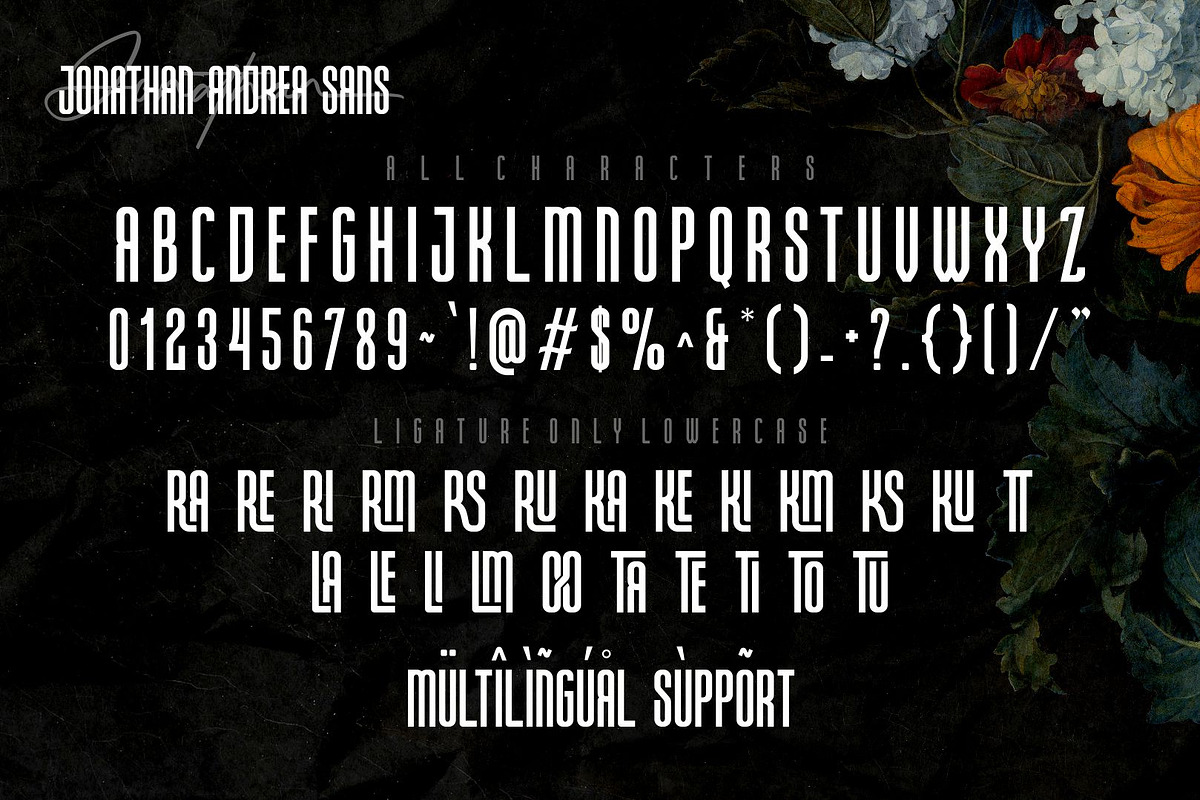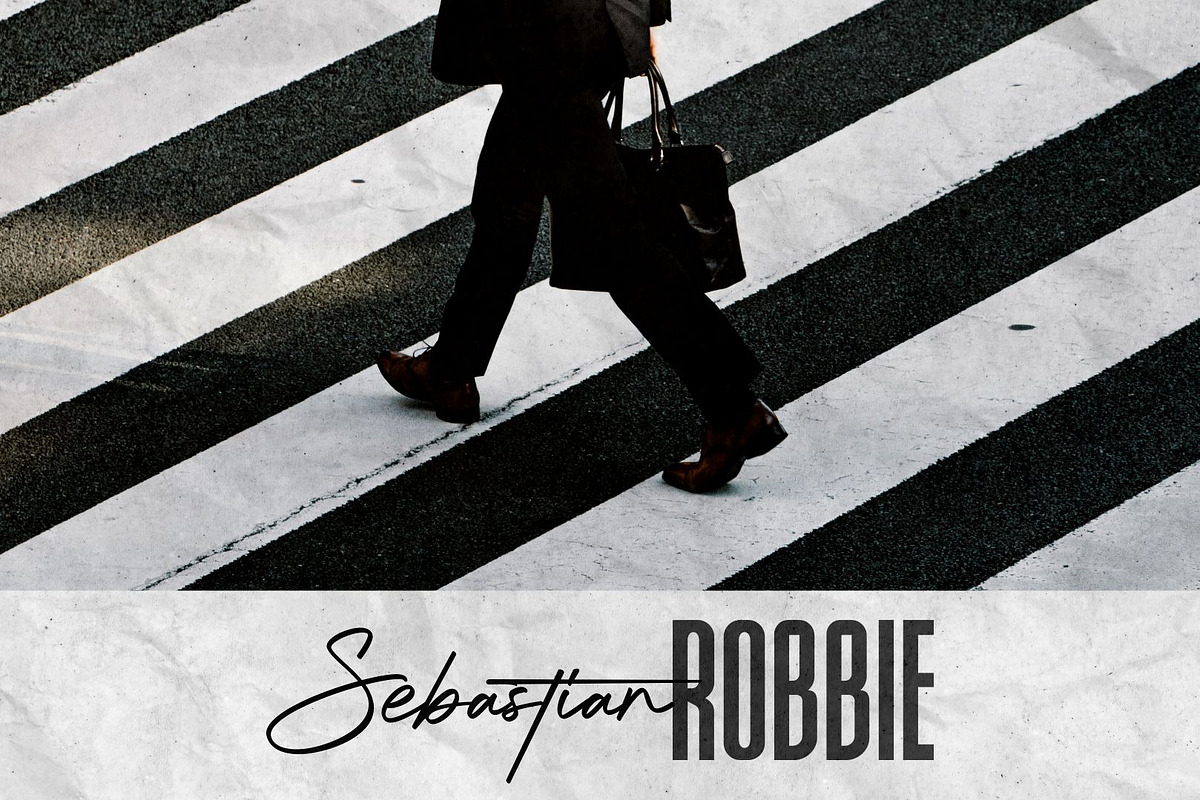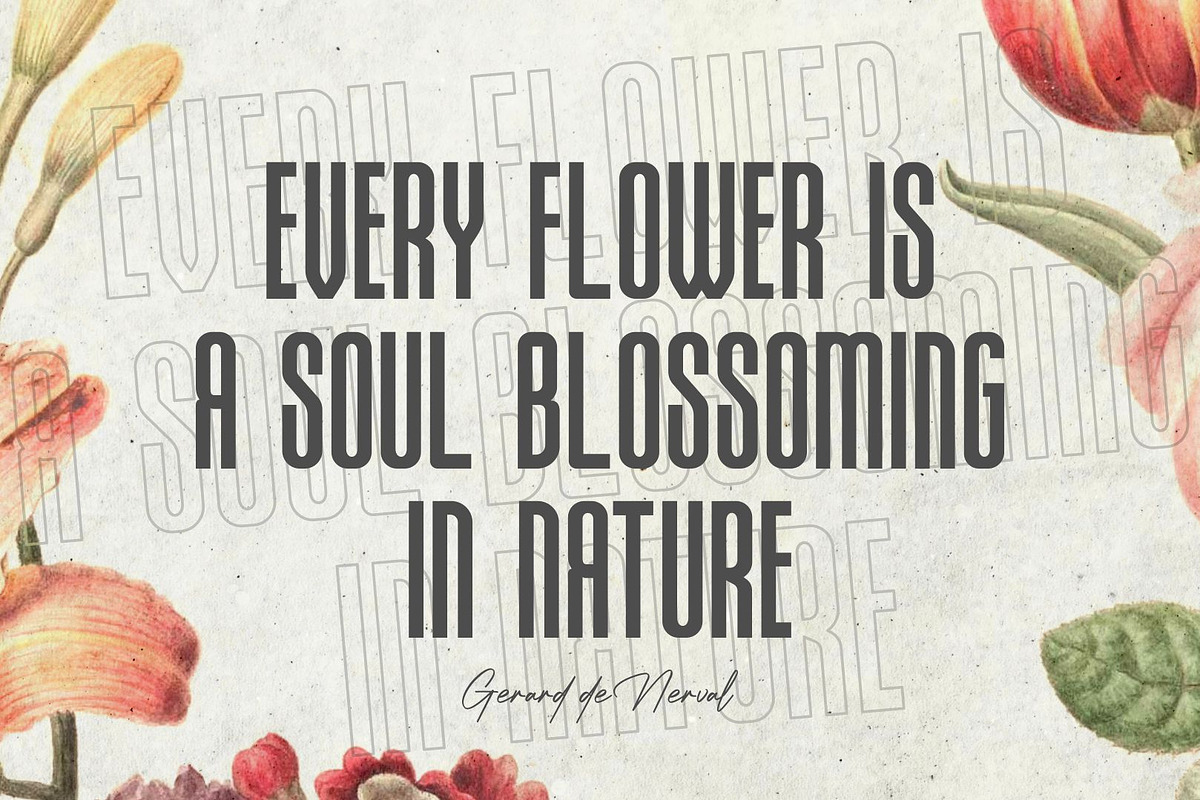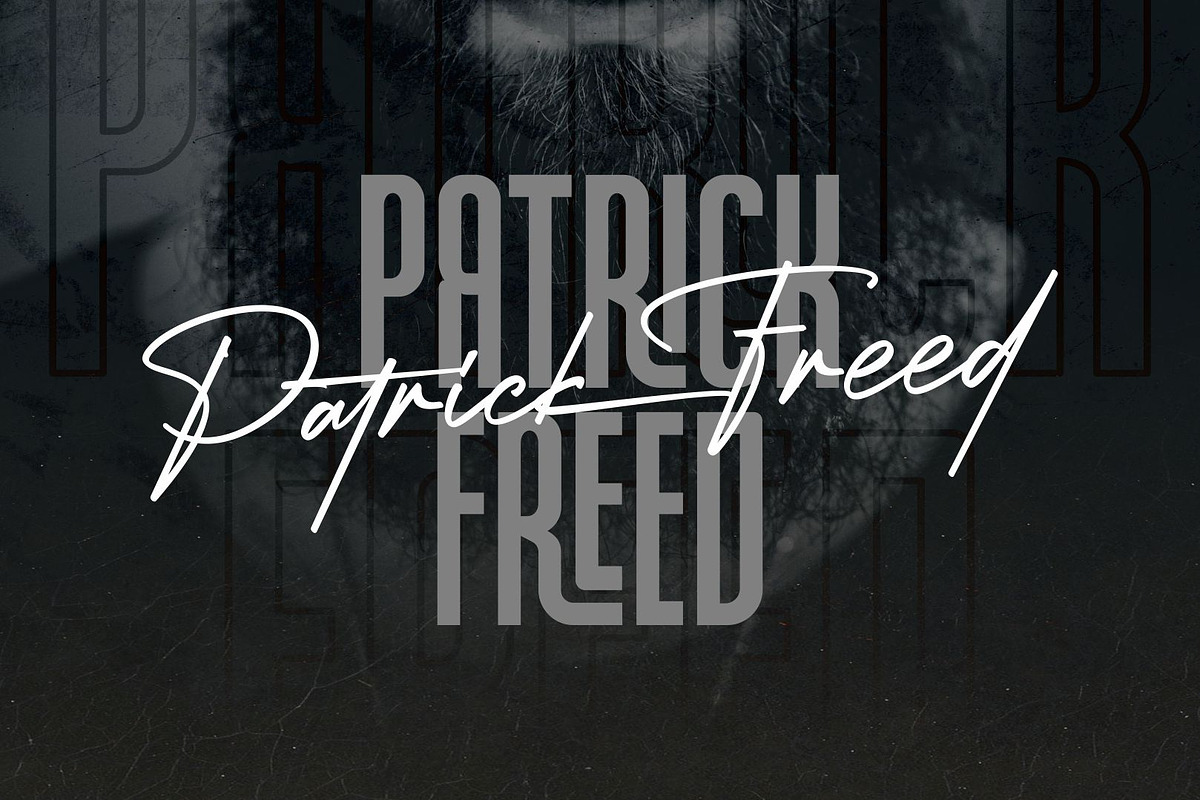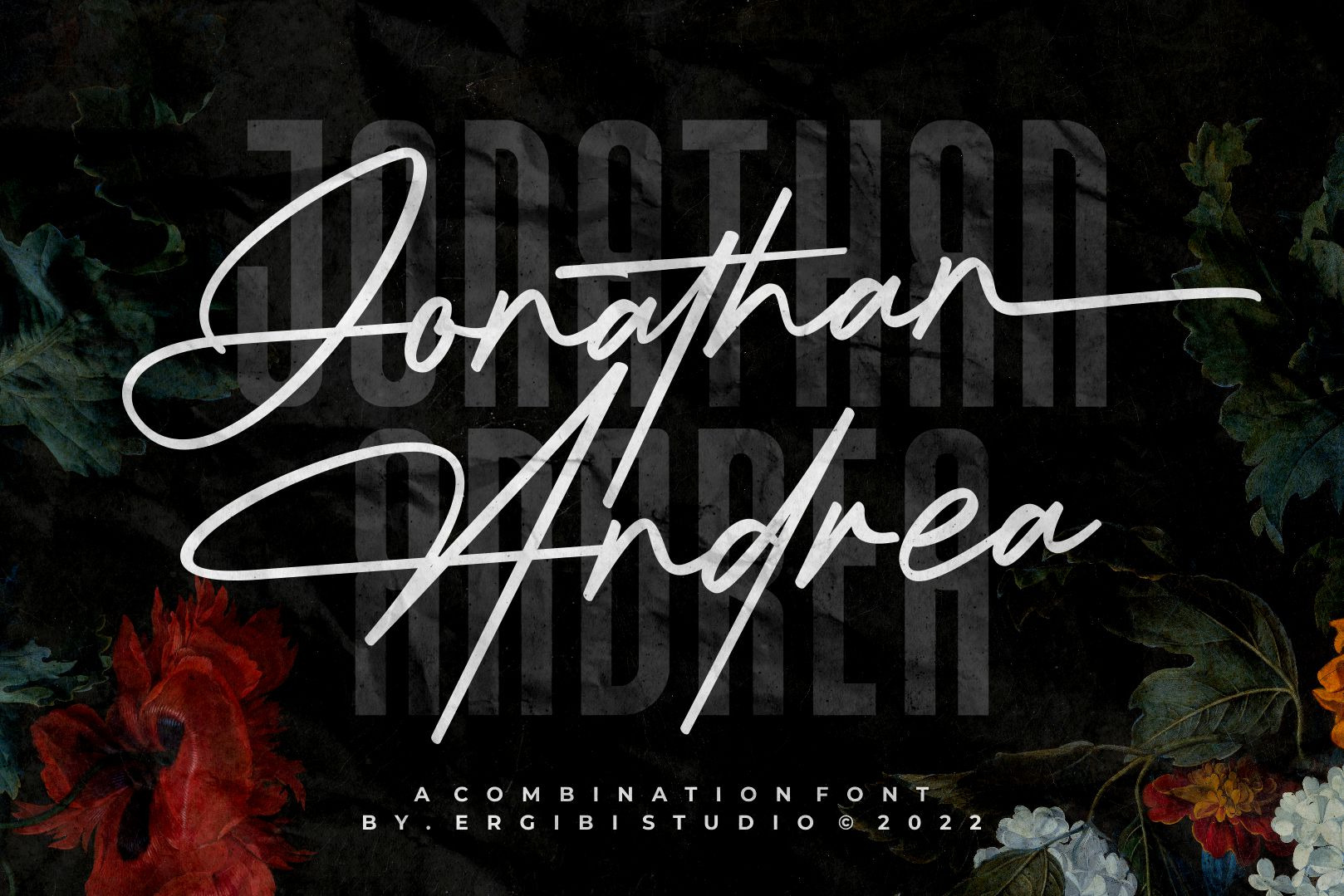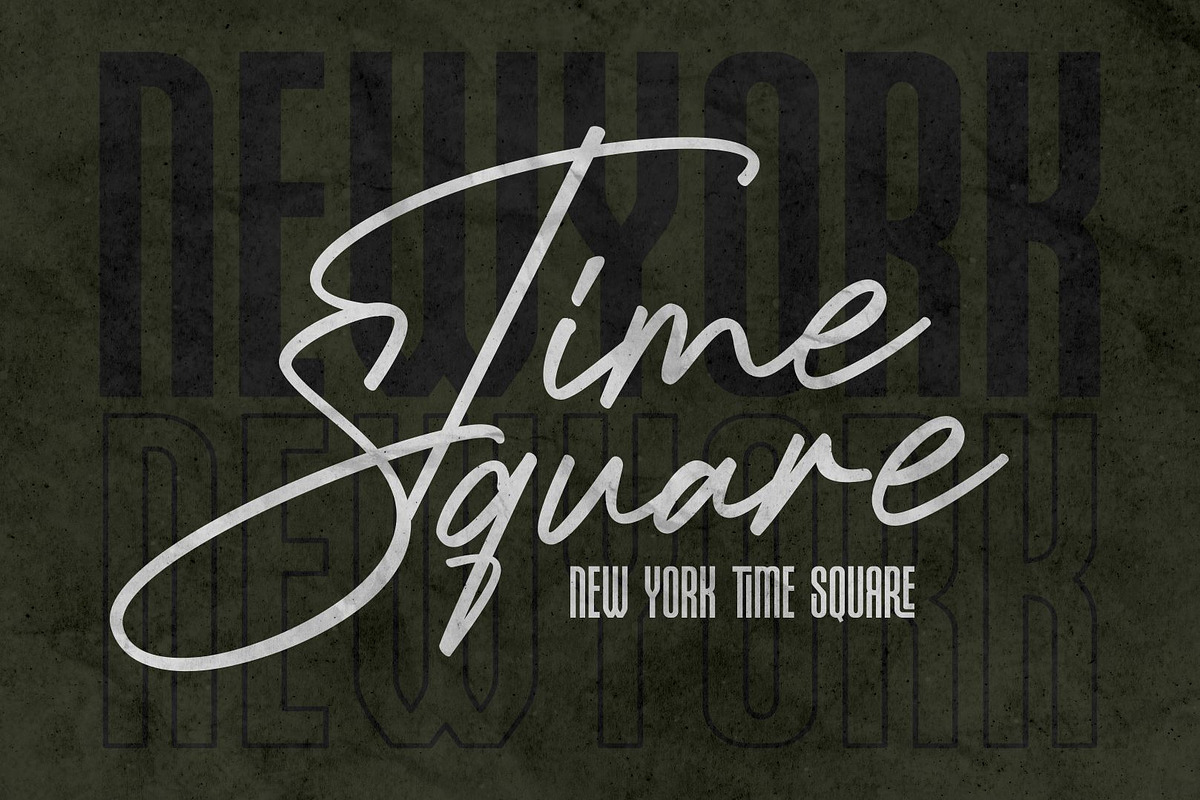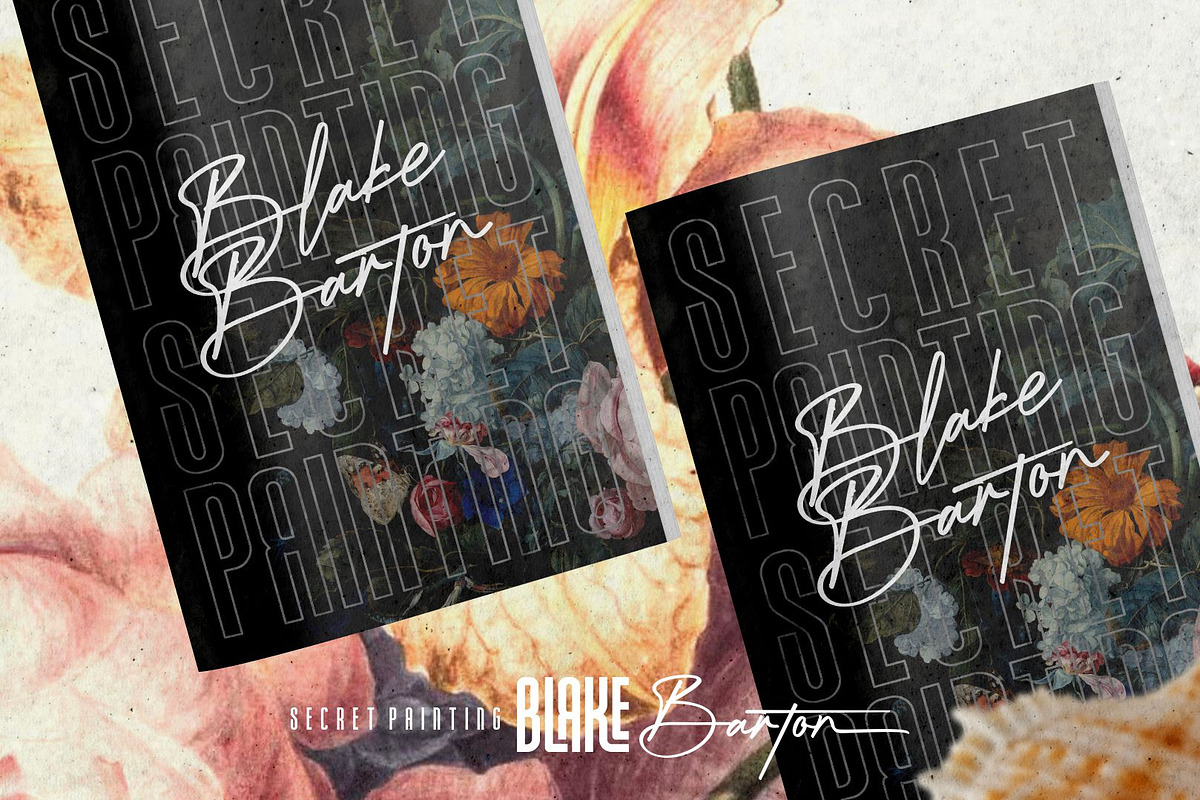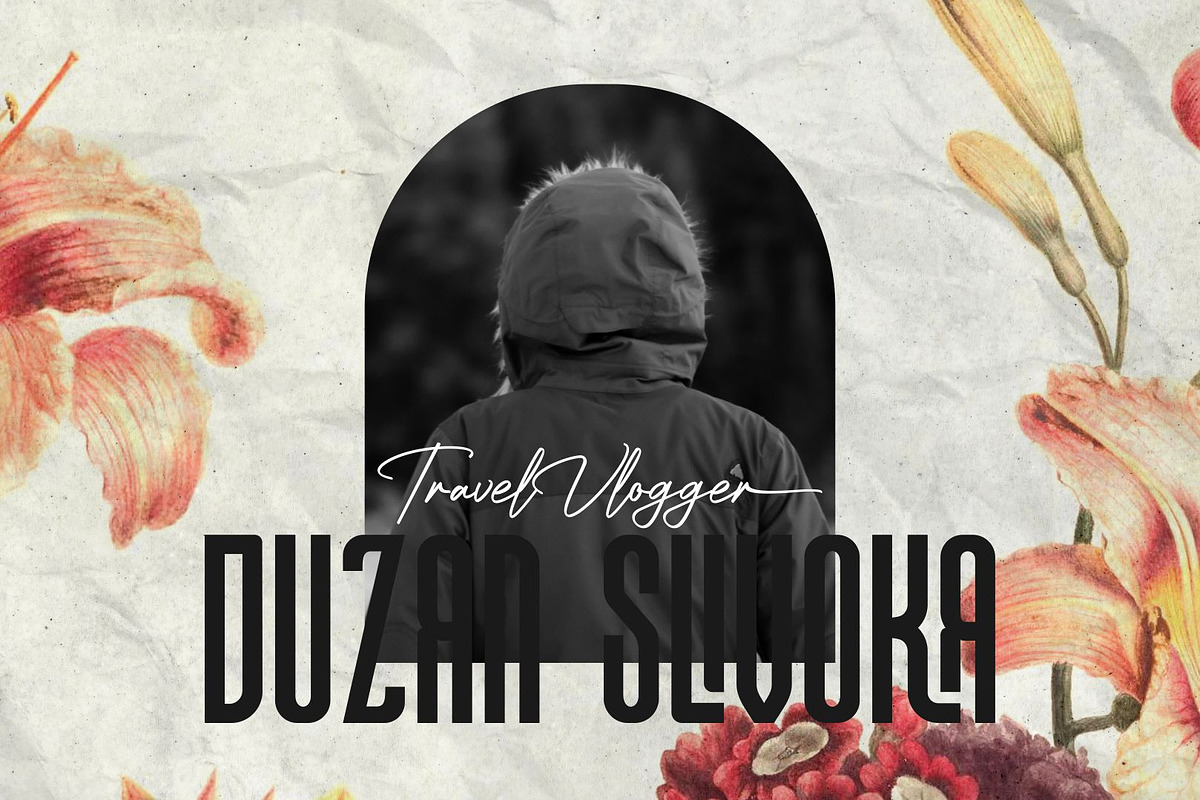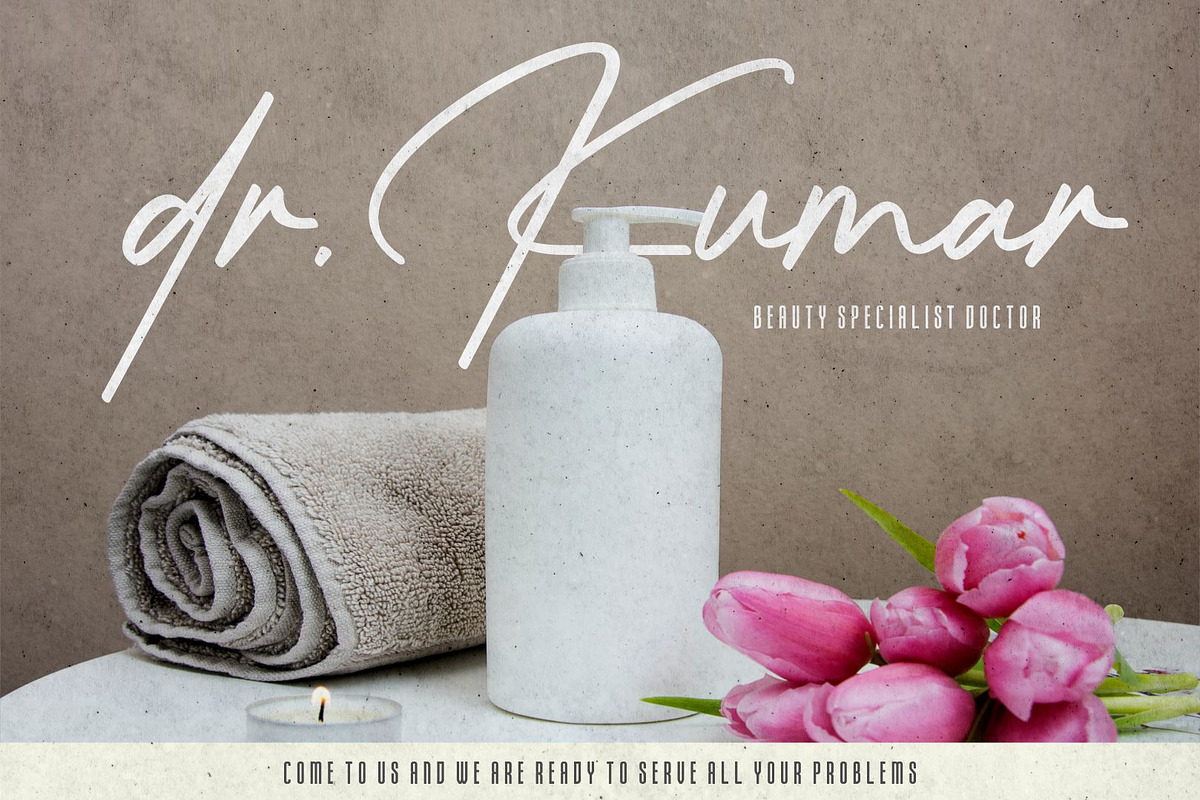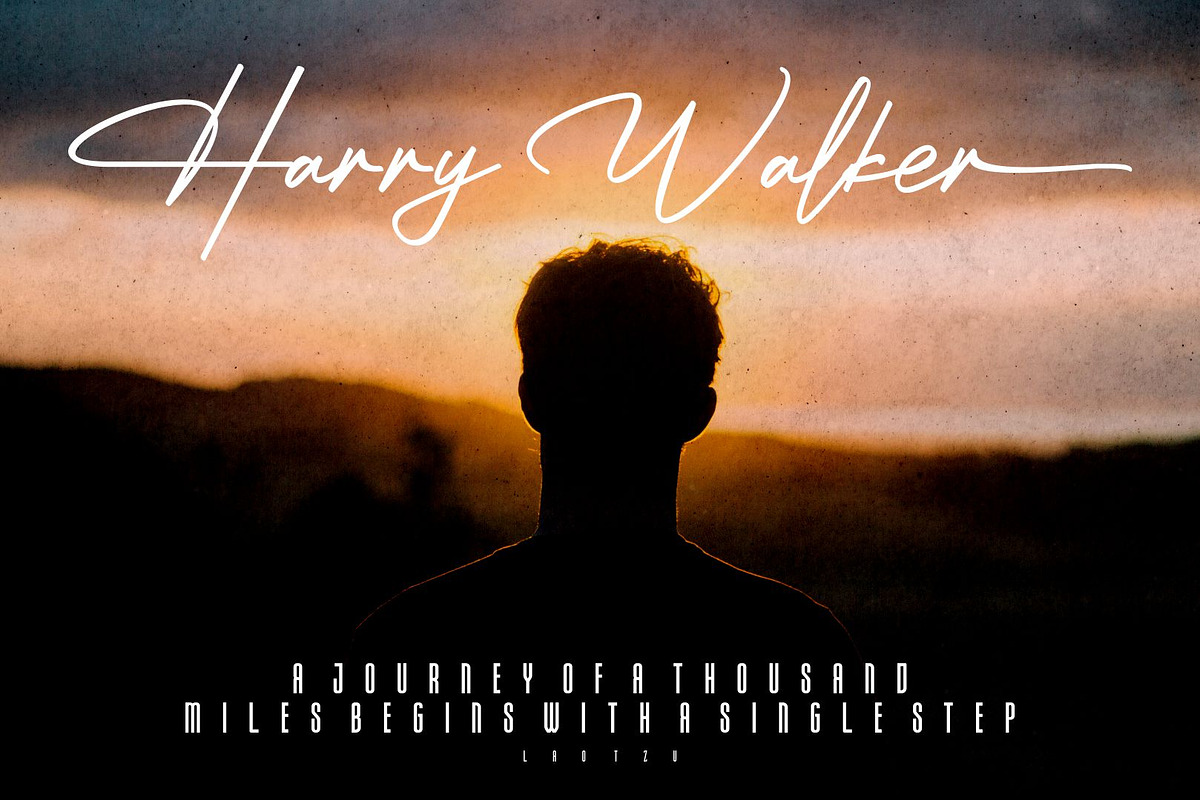
Jonathan Andrea - Font Combination
JONATHAN ANDREA A font combination, Modern signature and elegant Sans, we made this font with care and detail touchwhich makes the perfect font combination that you can apply for your design that needs an elegant touch, classy looks, and minimalist. perfectly for headlines, wedding, social media, logos, posters, packaging, T-shirts,coffee shops, restaurants, magazine’s headers, signs or gift/post cards,cafe’s and weddings or any type of advertising purpose.